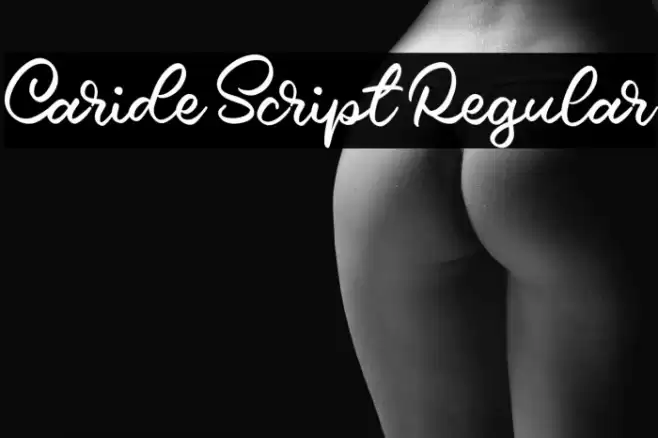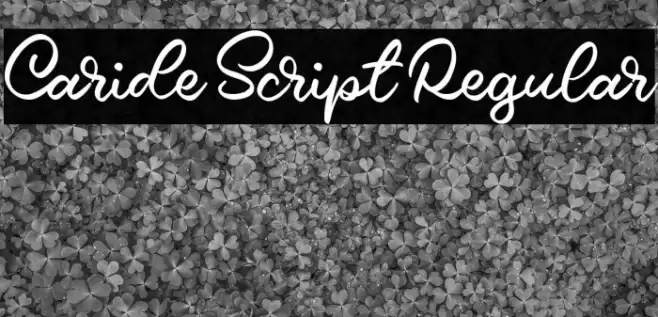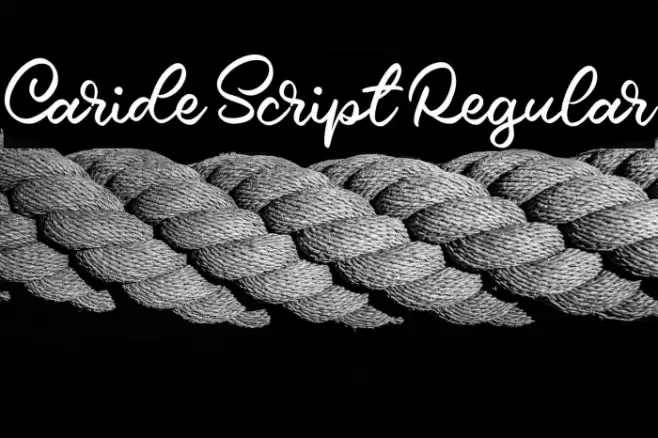
Caride Script Regular Font
Caride Script Regular Description
This elegant script font features fluid, connected strokes that mimic the natural flow of handwriting. The uppercase letters are gracefully elongated, while the lowercase letters maintain a consistent baseline, creating a harmonious balance. The numerals and special characters are designed with the same flowing style, ensuring uniformity across all elements. The font's overall appearance is both sophisticated and approachable, making it suitable for a variety of design applications. Its smooth curves and loops add a touch of elegance, while the moderate stroke contrast enhances readability without compromising its decorative appeal.
A fluid, elegant script font with connected strokes and moderate contrast from Regular fonts.
- Font: Caride Script Regular
- Proposed Projects: Ideal for wedding invitations, greeting cards, branding, and elegant packaging designs.
- Overall Style: Elegant, Decorative
- Use Case: Logos, Invitations, Decorative text